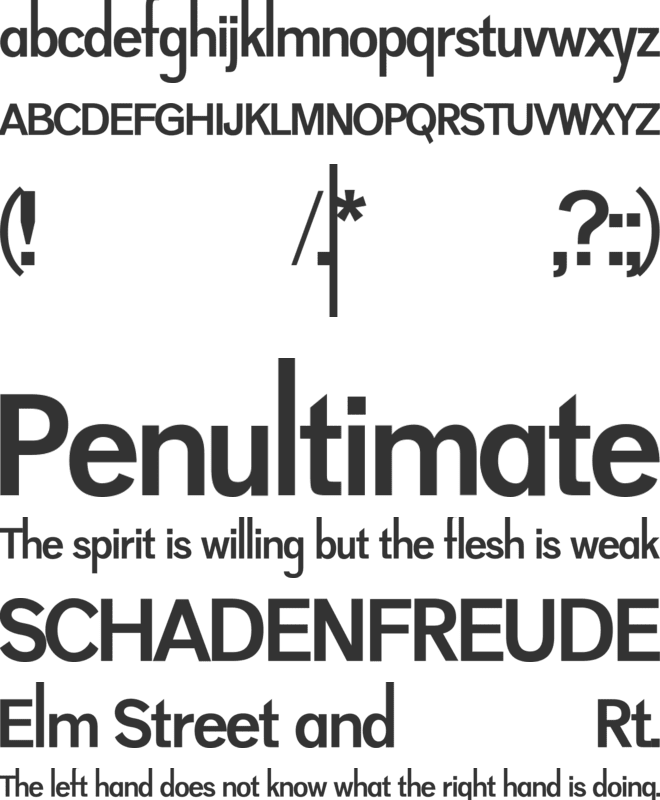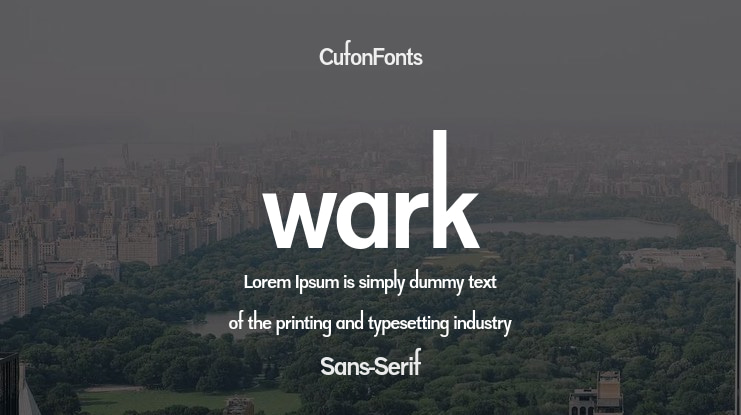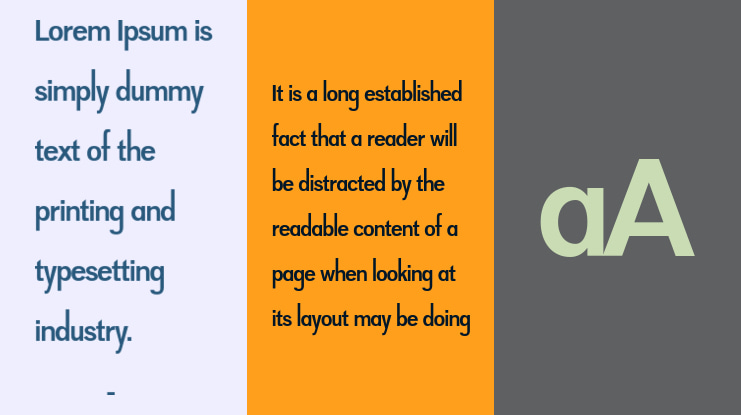
wark Font Family
🎨 Font Name: Wark by Minimalist Art Studio
🎨 Font Description: WARK is a minimalist sans serif with soft texture and modern restraint, ideal for branding, lifestyle, and editorial calm.
βœ” Complete Latin set + multilingual diacritics
βœ” Alternates, stylistic sets & ligatures
βœ” Numbers, small caps, and extended punctuation
βœ” Bonus italics and family styles